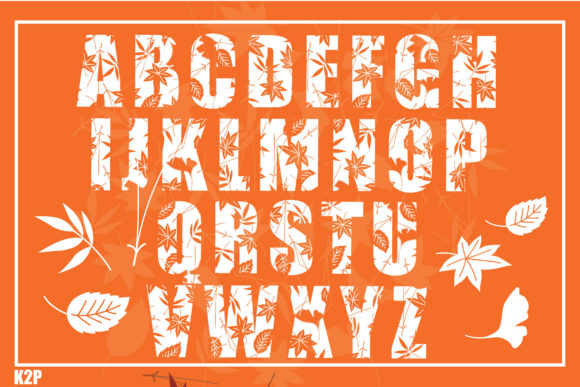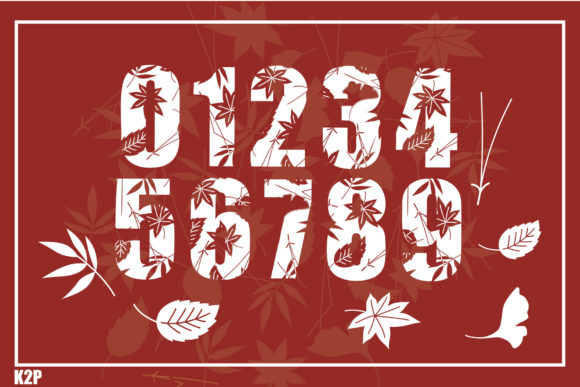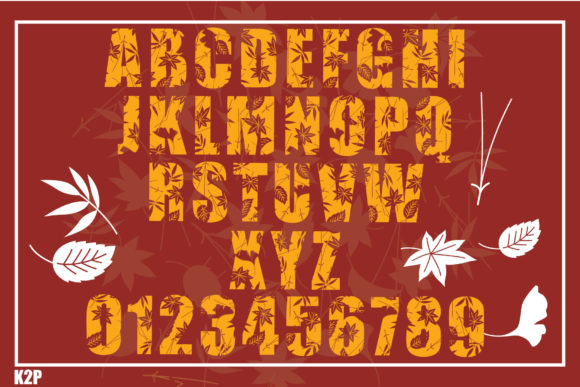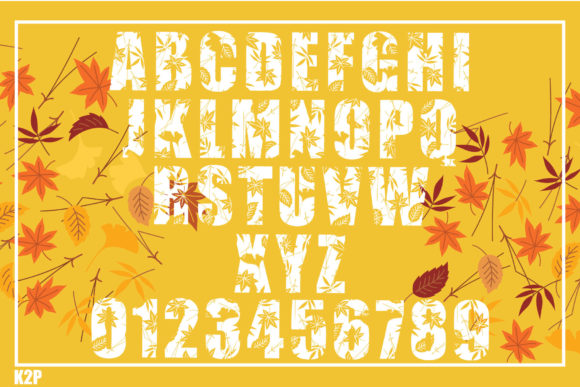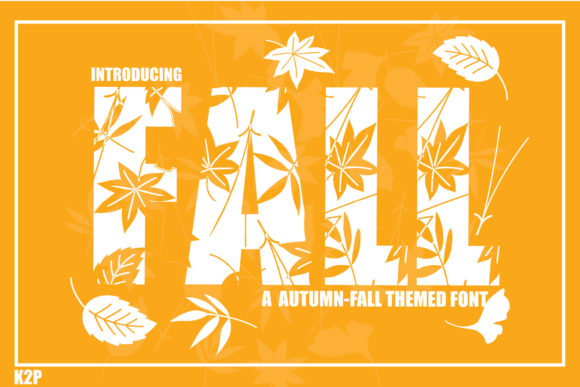
Introducing Fall Font: The Perfect Addition to Your Seasonal Designs
As the leaves change colors and the air grows crisper, designers and crafters begin to think about creating seasonal content that captures the essence of Fall. One of the most important elements in creating visually appealing designs is the choice of font. If you’re looking for a font that embodies the warmth and coziness of the Fall season, look no further than Fall Font. In this article, we’ll take a closer look at this unique decorative font and explore its features, benefits, and uses.
What is Fall Font?
Fall Font is a thick lettered and incredibly unique decorative font that is perfect for adding a touch of Autumnal charm to your designs. Its bold and eye-catching style makes it ideal for use in a variety of design projects, from Fall-themed party invitations and decorations to seasonal branding and marketing materials.
Key Features of Fall Font
- Thick Lettered: The font features thick, bold letters that give it a sturdy and rugged feel. This makes it perfect for use in designs where you want to make a statement.
- Unique and Decorative: Fall Font is an incredibly unique and decorative font that will add a touch of personality to your designs. Its distinctive style sets it apart from more traditional fonts and makes it perfect for use in seasonal designs.
Benefits of Using Fall Font
So why choose Fall Font for your seasonal designs? Here are just a few benefits of using this amazing font:
- Instant Recognition: The bold and eye-catching style of Fall Font makes it instantly recognizable as a seasonal font. This can help to create a cohesive and recognizable brand identity for your business.
- Versatility: Fall Font can be used in a wide range of design projects, from party invitations and decorations to branding and marketing materials.
Design Ideas Using Fall Font
So what can you create with Fall Font? Here are just a few design ideas to get you started:
- Fall Party Invitations: Use Fall Font to create eye-catching and seasonal party invitations that will set the tone for your Autumnal celebrations.
- Seasonal Branding: Use Fall Font to create a cohesive and recognizable brand identity for your business during the Fall season.
- Fall-themed Decorations: Use Fall Font to create seasonal decorations, such as banners, garlands, and signs, that will add a touch of Autumnal charm to your home or business.
Tips for Using Fall Font
Here are a few tips for getting the most out of Fall Font:
- Experiment with Different Sizes: Fall Font looks great in a variety of sizes, from small and delicate to large and bold. Experiment with different sizes to find the one that works best for your design.
- Pair with Other Fonts: Fall Font can be paired with other fonts to create a unique and interesting design. Try pairing it with a more traditional font for a contrasting look.
- Use the Glyphs and Swashes: Don’t be afraid to get creative with the glyphs and swashes in Fall Font. These can add a touch of personality and whimsy to your designs.
Fall Font is a unique and decorative font that is perfect for adding a touch of Autumnal charm to your designs. Its bold and eye-catching style, combined with its PUA encoding, make it easy to use and versatile. Whether you’re a designer, crafter, or business owner, Fall Font is a great addition to your font collection. So why wait? Download Fall Font today and start creating your own seasonal designs!